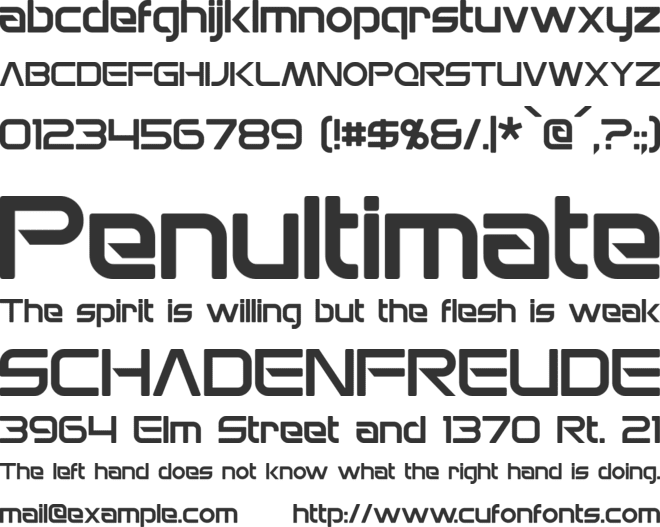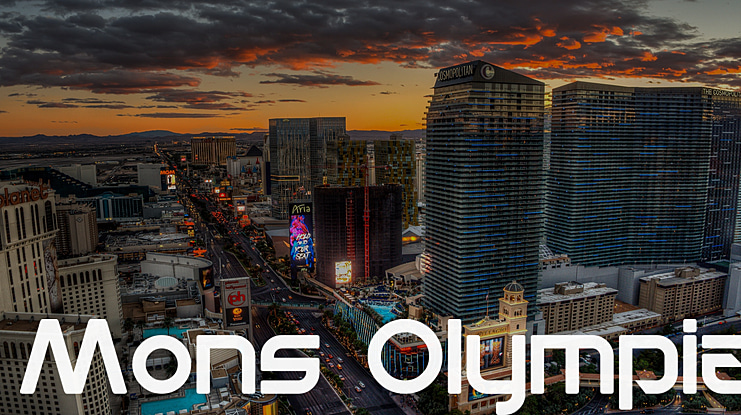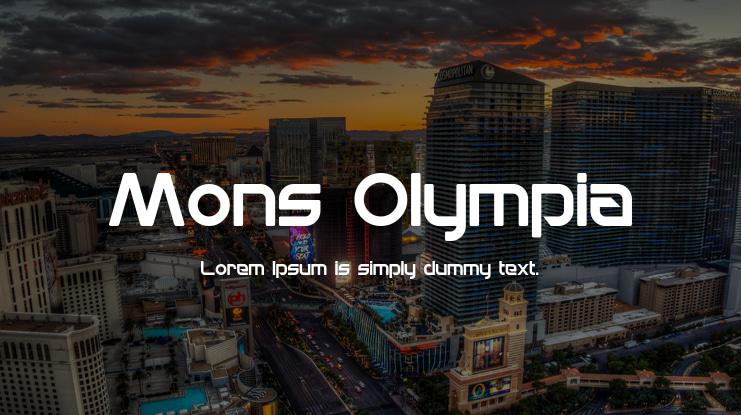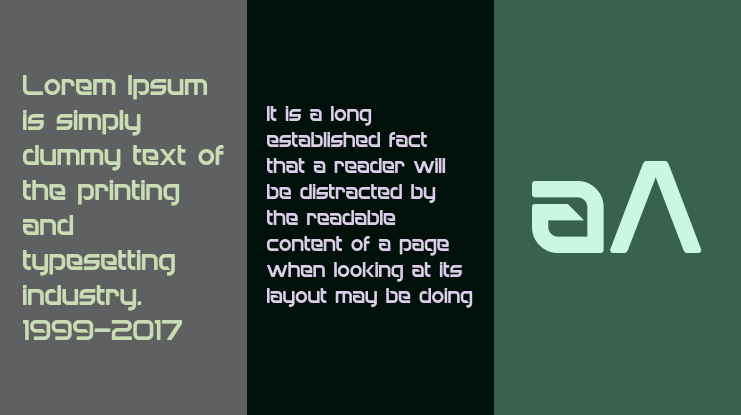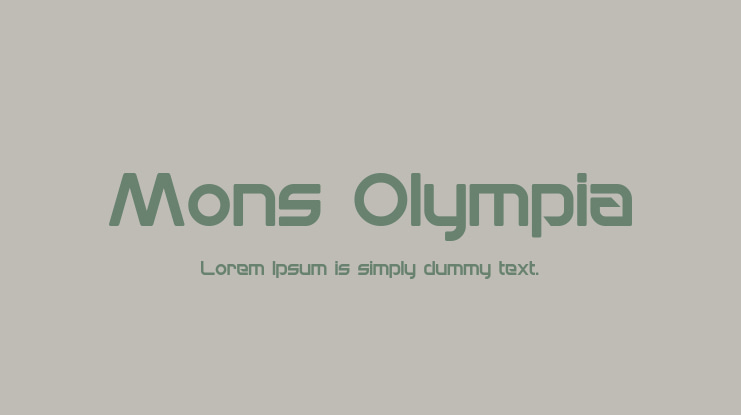
Mons Olympia Font Family
“Mons Olympia” is based on the classic lettering of Walt Disney’s famous “Space Mountain” ride. This retro-science-fiction typeface includes full alphanumerics, extended punctuation and euro and comes in regular, bold, italic, and condensed versions